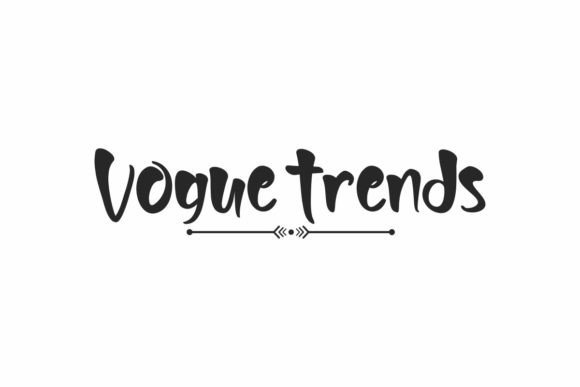
Prepare to be swept off your feet by Vogue Trends Font, the ultimate script font family that will add an enchanting touch of playfulness and whimsy to your creative endeavors. Inspired by the carefree spirit of children's fashion, this font exudes a charming cartoonish style that will capture hearts and transform your designs into captivating masterpieces.
Step into a world of boundless possibilities as you explore the diverse industries that Vogue Trends Font effortlessly complements. From the sweet aroma of bakeries to the vibrant hues of clothing boutiques, from the delicate touch of cosmetics to the fragrant allure of florists, this font seamlessly blends in, adding a touch of magic to every project. Elevate your gadget accessories with a playful twist, adorn kids' products with a sprinkle of joy, and create an inviting ambiance in salons and spas with its warm and welcoming aura.
With Vogue Trends Font, you're not just downloading a font; you're embracing an artistic journey filled with endless opportunities. Unleash your creativity and watch as your designs flourish, taking on a life of their own. Whether you're crafting logos, branding materials, social media posts, or any other visual masterpiece, Vogue Trends Font will be your steadfast companion, guiding you towards artistic excellence.